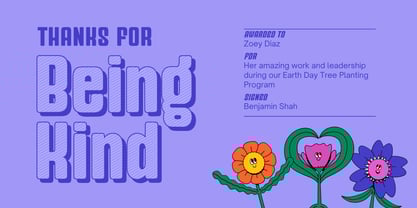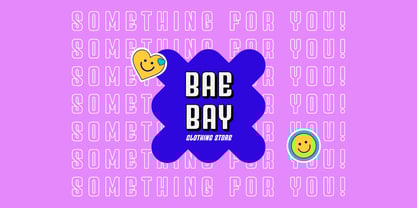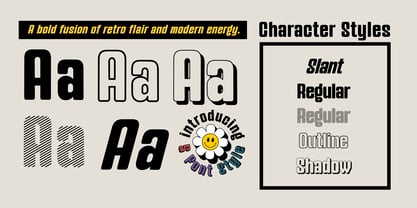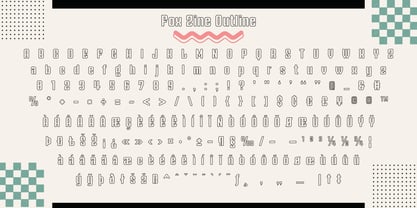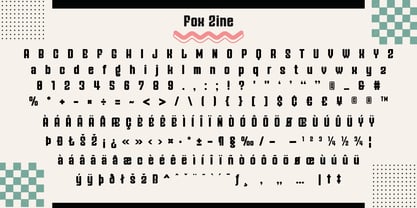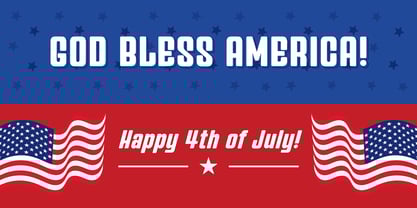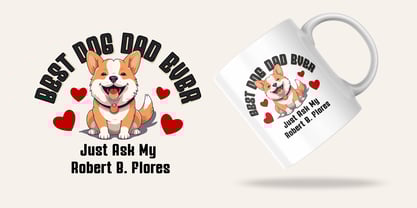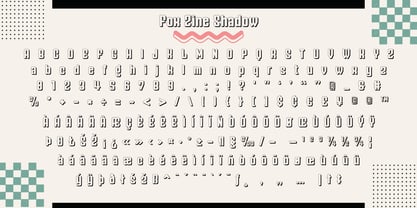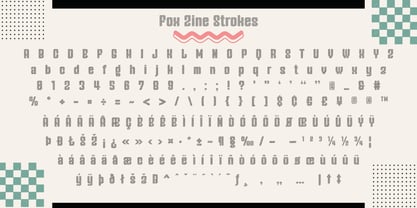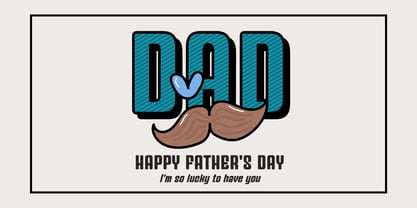
Fox Zine
🌟 Fox Zine – Bold Display Font with 5 Playful Styles! 🌟
Introducing Fox Zine, a bold and energetic display font family designed to turn heads and make your creative projects pop! With 5 unique styles—Regular, Outline, Shadow, Strokes, and Slant—this font brings a perfect blend of retro vibes and modern punch to your designs.
Whether you're creating eye-catching posters, zines, packaging, logos, or social media graphics, Fox Zine adds a confident, playful edge that grabs attention and delivers impact.
Fox Zine Regular – The bold and smooth core style, perfect for strong headlines and clean typographic layouts.
Fox Zine Outline – A sleek outlined version, giving your design a light, cool retro touch.
Fox Zine Shadow – Add depth and drama with this fun and stylish drop-shadowed variation.
Fox Zine Strokes – With diagonal stripes and a textured punch, this style is great for energetic and loud graphics.
Fox Zine Slant – A dynamic italicized version with forward motion – ideal for action-driven or editorial looks.
Let Fox Zine add a touch of playfulness and personality to your next project. Whether you're designing for kids, crafting a bold brand, or making your words stand out — Fox Zine has you covered!